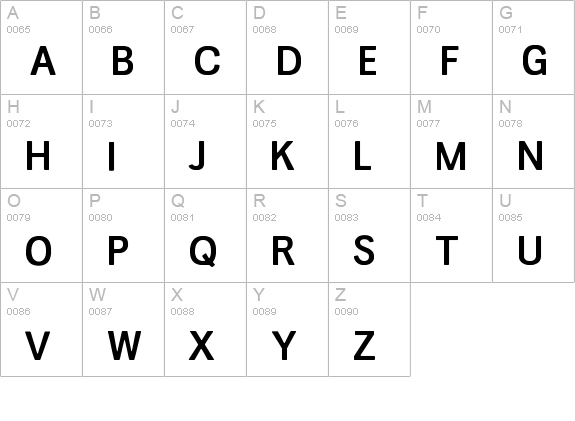
Telephoto-Regular is the standard, neutral variant in the Telephoto typeface family \xE2\x80\x94 well suited to general body text, paragraphs, and standard typographic work.
Telephoto-Regular is a modern and elegant font that exudes sophistication and professionalism. Its clean lines and balanced proportions make it a versatile choice for a wide range of design projects. With a tall x-height and narrow spacing, Telephoto-Regular is perfect for body text as well as headers and titles. This font offers a sense of refinement and clarity, making it ideal for branding, editorial design, and signage. Its timeless appeal will ensure that your designs stand out and make a lasting impression. What's even better is that Telephoto-Regular is available for free download at FontsMarket.com. So go ahead and elevate your projects with this beautiful and versatile font today!